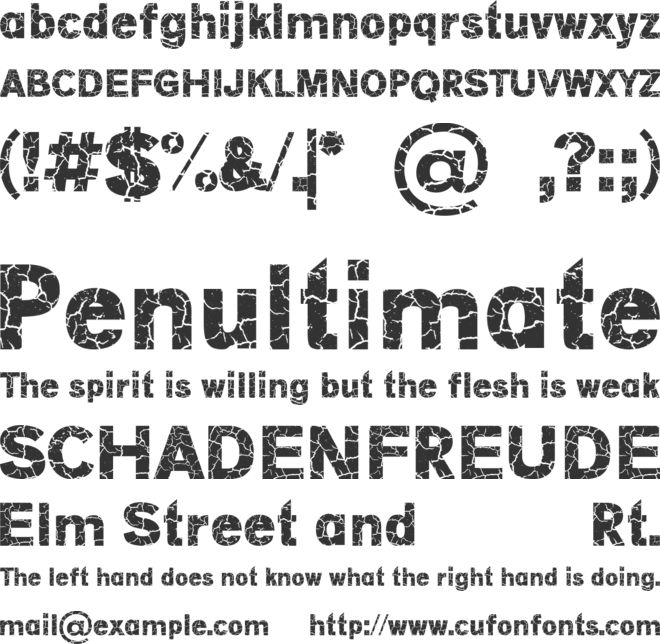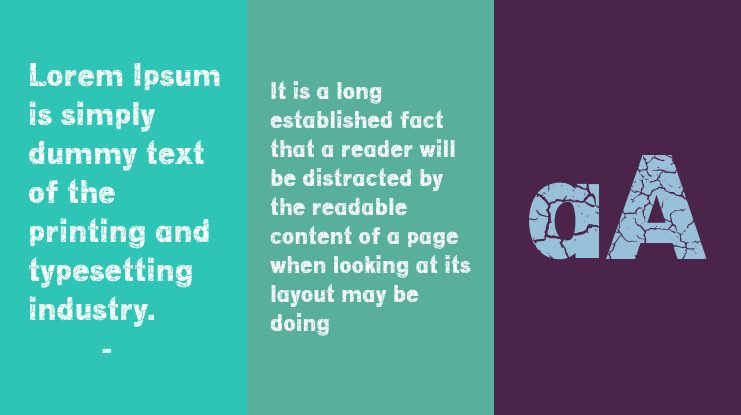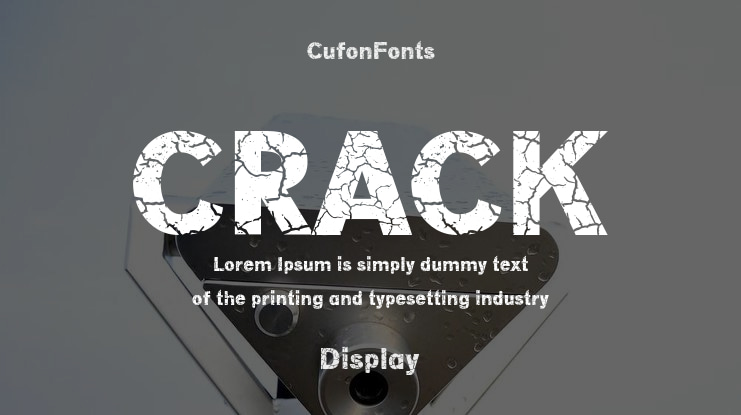
CRACK Font Family
CRACK is a modern sans serif with a fractured texture and multilingual support—perfect for cinematic titles, dystopian themes, and high-impact visuals.
CRACK font preview
CRACK font
CRACK ITALIC font